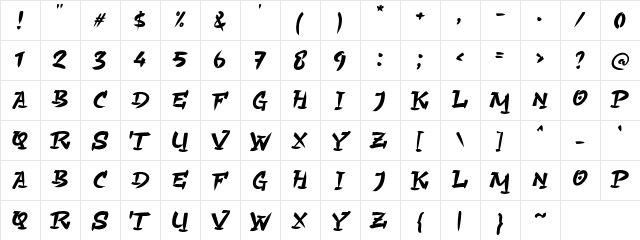
Complete a Astaga Dragon Regular glyph index. Displaying only characters natively supported by a Astaga Dragon Regular font.
a Astaga Dragon is a composed and adaptable typeface that performs quietly and consistently across a wide range of design contexts.